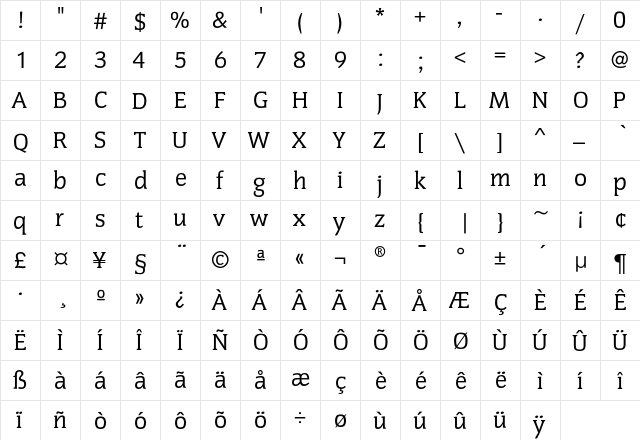
CongressEF Regular
Design Context for CongressEF Typeface
CongressEF takes a measured approach to typography — its balanced proportions and neutral character make it a reliable workhorse for both digital and print work.
Pro Tip: Use CongressEF in both headline and body roles to test its range before committing to a single application.